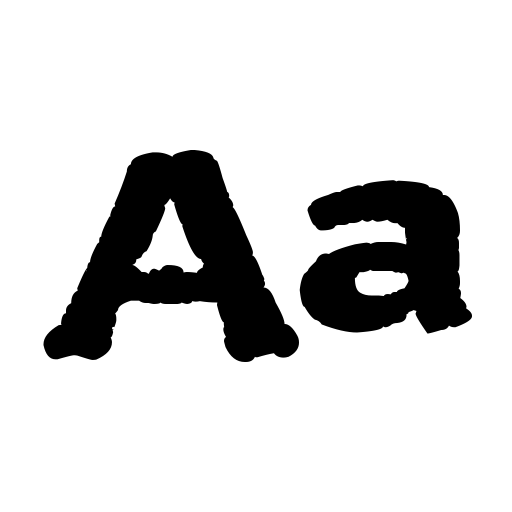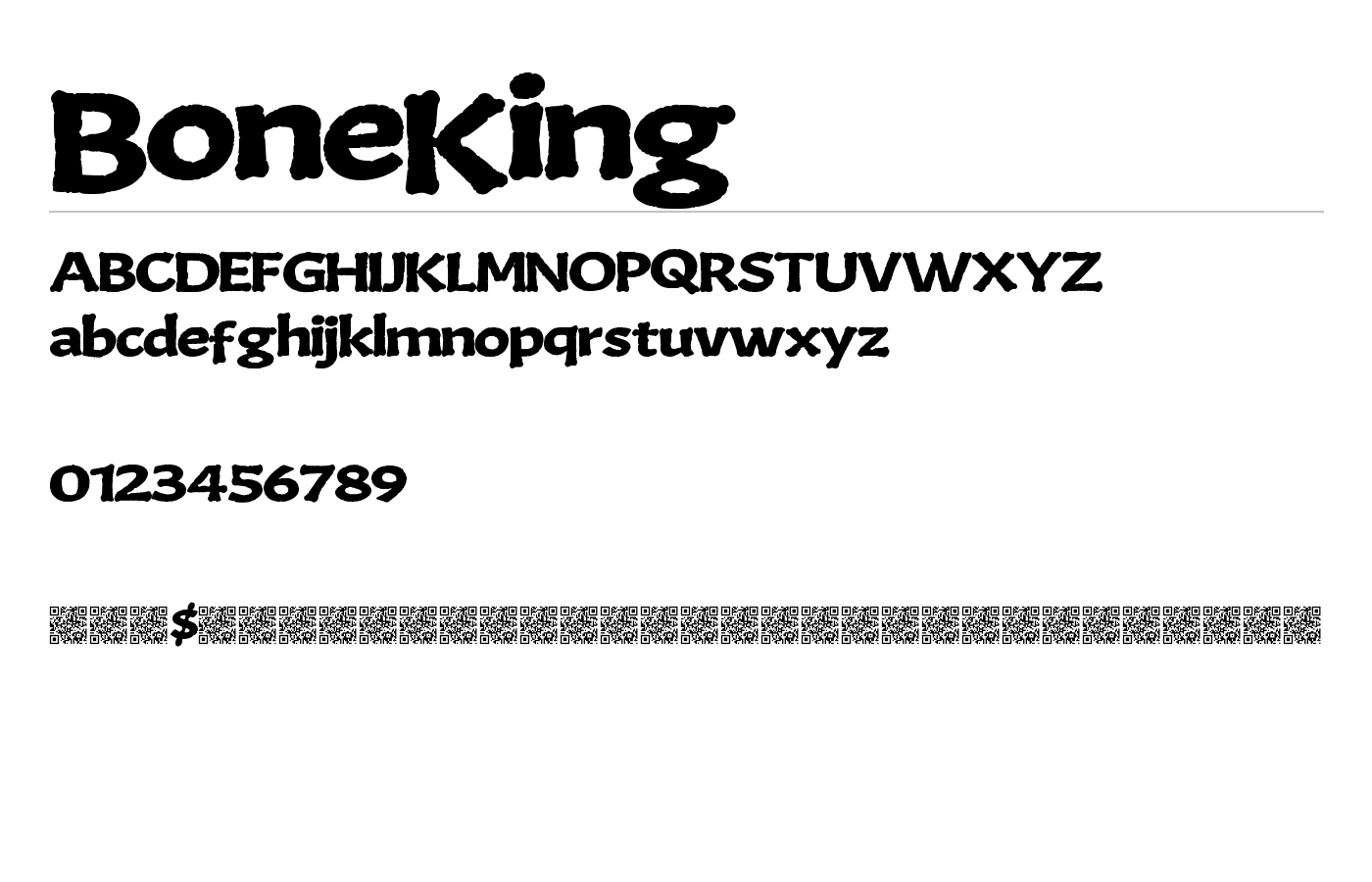
BoneKing is a bold, playful sans serif font with a hand-crafted, slightly rough texture that gives it a casual and approachable feel. Its sturdy letterforms and moderate contrast make it perfect for informal branding, posters, and creative projects that want to convey warmth and personality. This font works well in headlines or display settings where a fun and energetic vibe is desired.
BoneKing Font
About BoneKing Font